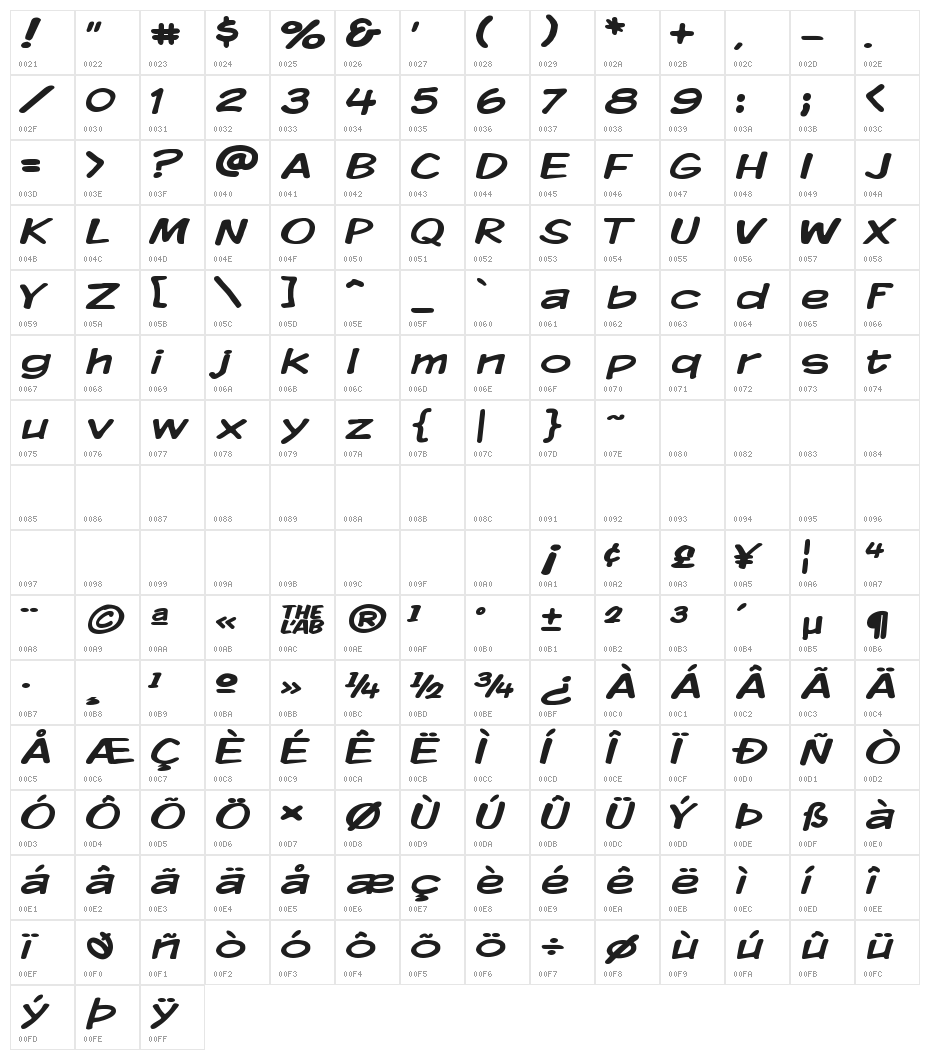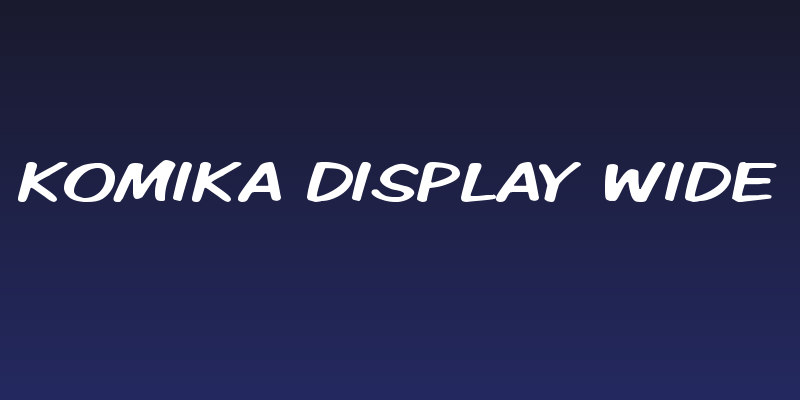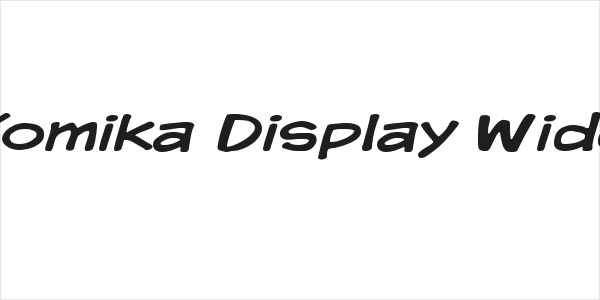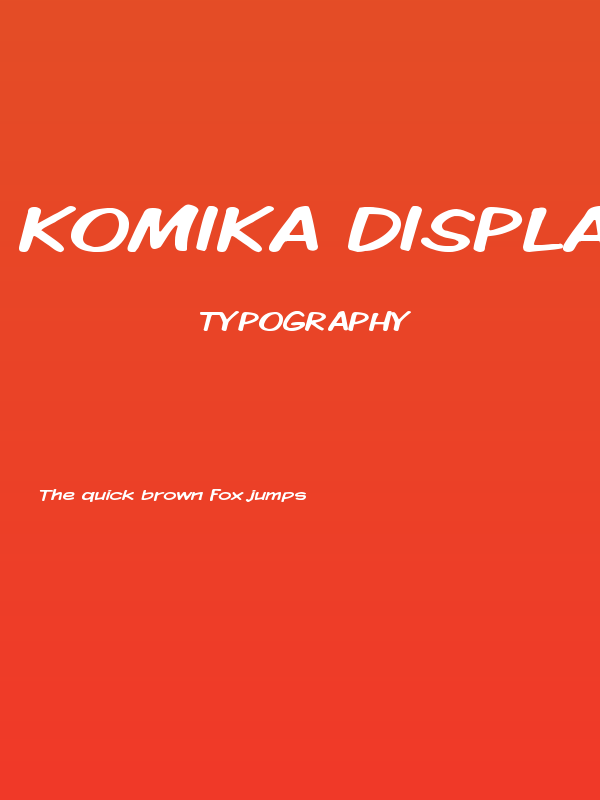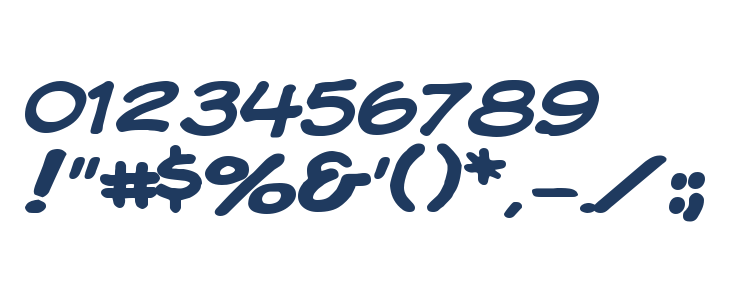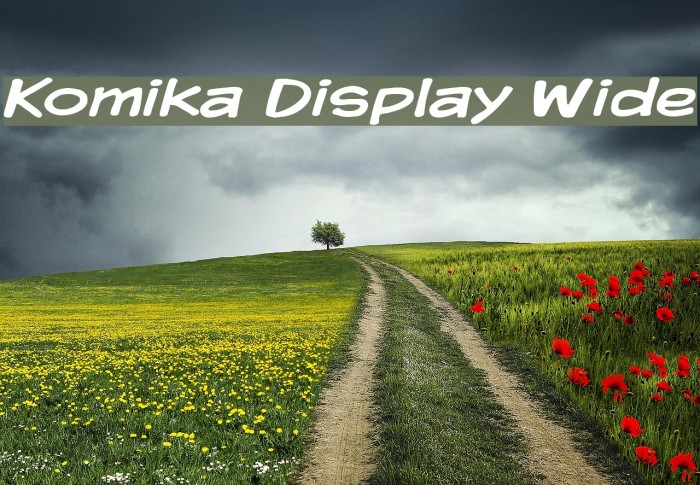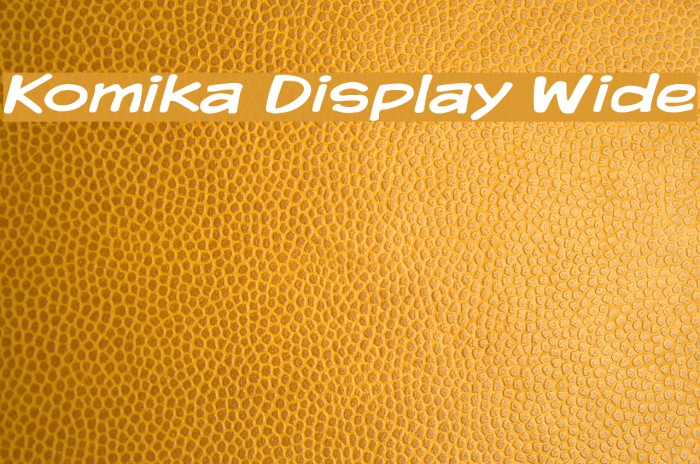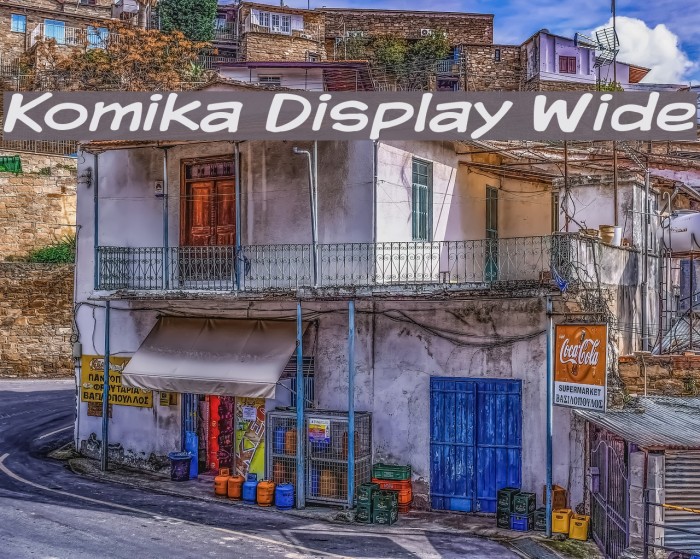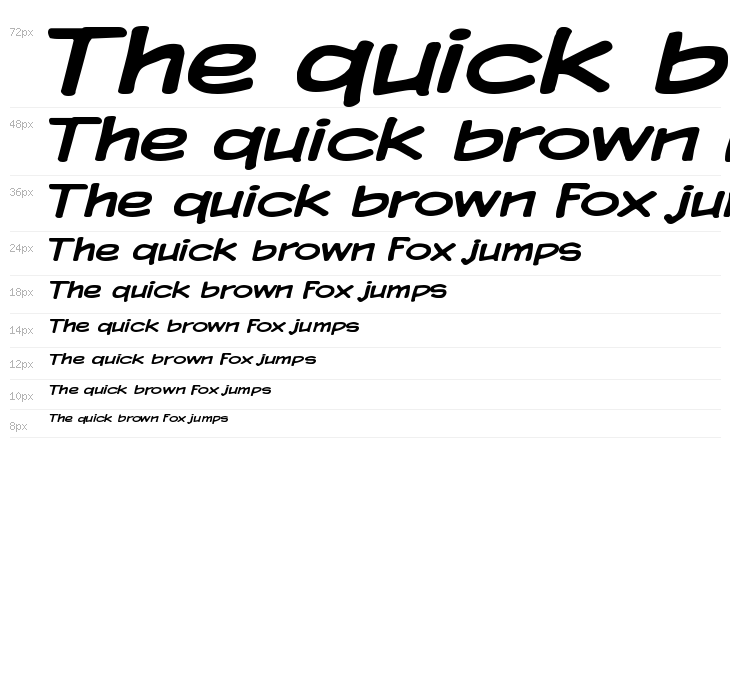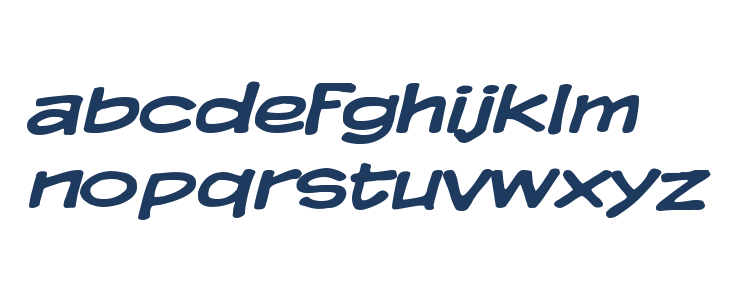
Komika Display Wide Font
Komika Display Wide Description
This font features a playful and bold style with a handwritten appearance. The characters are rounded and slightly slanted, giving them a dynamic and energetic look. The uppercase and lowercase letters maintain a consistent style, with smooth curves and a uniform stroke width. Numbers and special characters follow the same playful design, making the font suitable for informal and creative projects. The overall design is approachable and friendly, ideal for capturing attention in a fun and engaging way.
| Proposed Projects | Ideal for comic books, children's books, posters, and playful branding. |